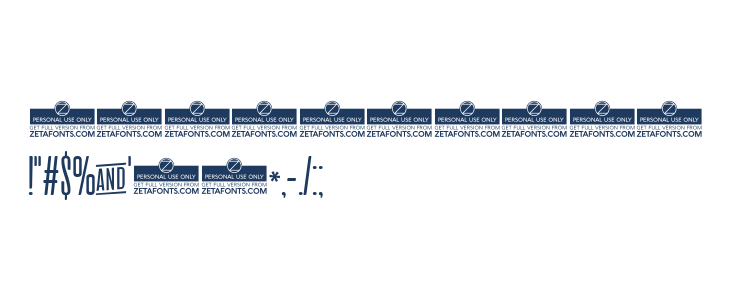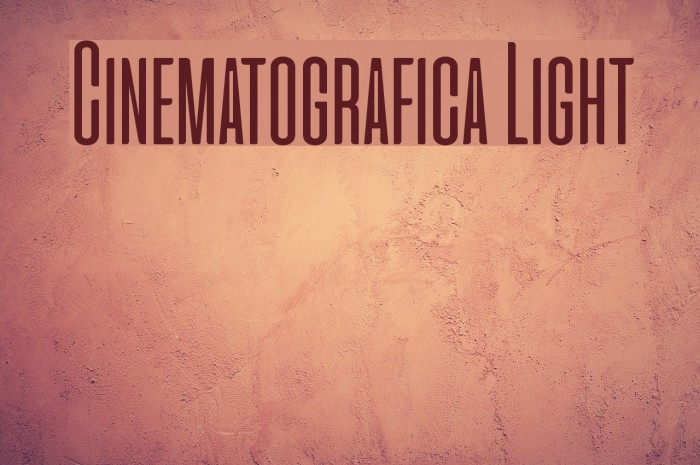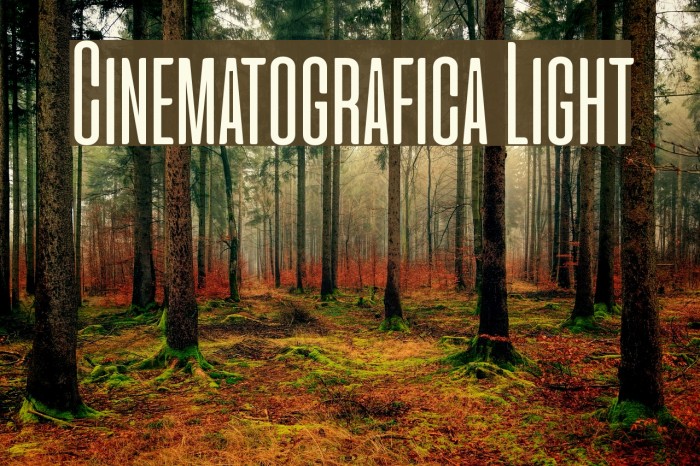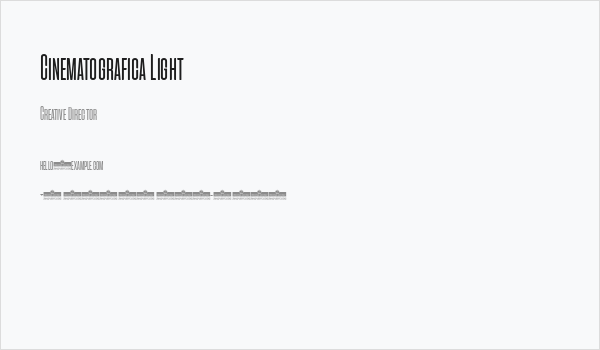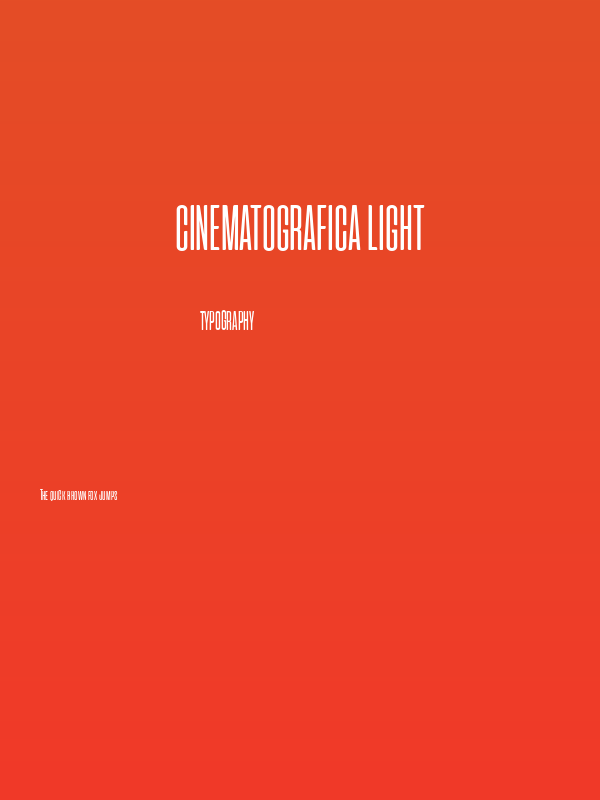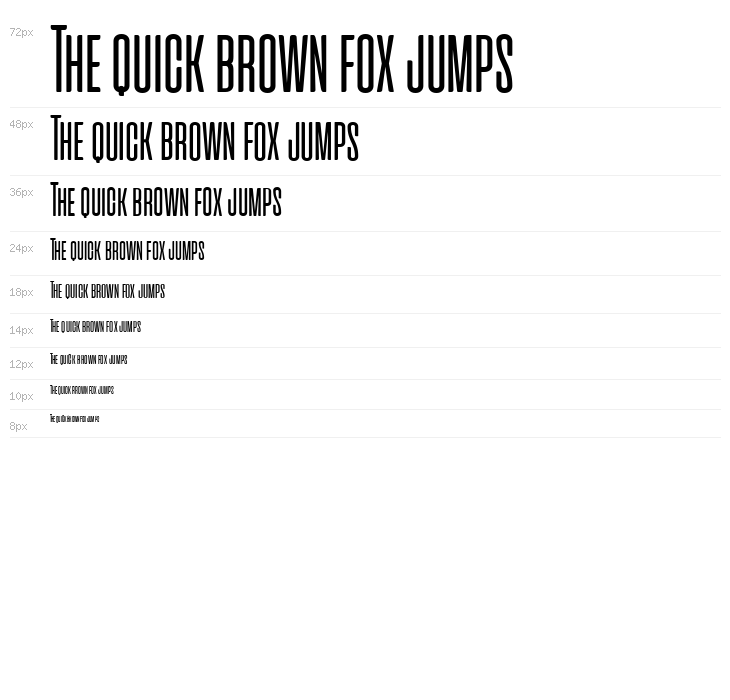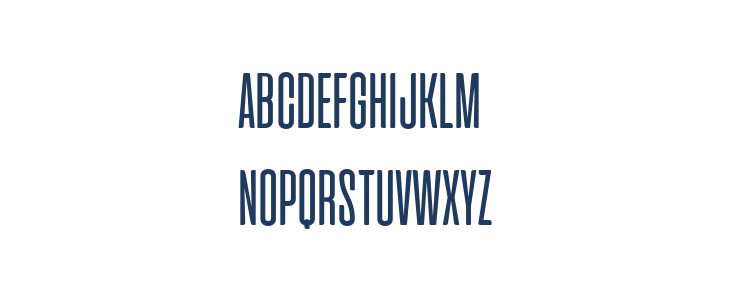
Cinematografica Light Font
Cinematografica Light Description
This font features a tall, condensed letterform with a modern and sleek appearance. The characters are uniformly narrow, giving it a distinct vertical emphasis. The strokes are consistent in width, contributing to a clean and streamlined look. The uppercase letters are particularly elongated, while the lowercase letters maintain a similar height, enhancing readability. The font includes a full set of numerals and a variety of special characters, making it versatile for different design needs. Its minimalistic style is suitable for contemporary projects that require a touch of elegance and sophistication.
| Proposed Projects | Ideal for movie posters, fashion magazines, branding, and editorial design. |